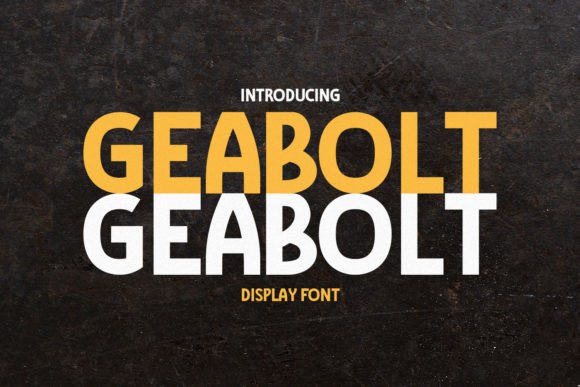
Journey back in time to the era of classic typewriters with Geabolt, the captivating sans serif font family that oozes vintage charm and modern elegance. Inspired by the timeless aesthetic of industrial designs, Geabolt possesses a masculine style that will add a touch of sophistication to your creative endeavors.
Immerse yourself in the world of Geabolt, where each glyph and swash is meticulously crafted to evoke a sense of nostalgia and authenticity. Unleash your creativity and let Geabolt's timeless appeal enhance your logos, product labels, posters, and designs.
Beyond its visual appeal, Geabolt is meticulously designed to provide exceptional functionality. Its PUA encoding ensures effortless access to a comprehensive range of glyphs and swashes, allowing you to effortlessly incorporate intricate details and flourishes into your designs.
With Geabolt as your font companion, you'll discover a world of creative possibilities. Whether you're crafting a timeless logo that exudes heritage, designing product labels that capture the essence of tradition, or creating captivating posters that evoke a sense of nostalgia, Geabolt is the font that will bring your vision to life.
Embrace the allure of Geabolt and let its classic charm elevate your designs to new heights. With its industrial roots and modern sensibilities, Geabolt is the font that will transform your creative projects into captivating masterpieces.